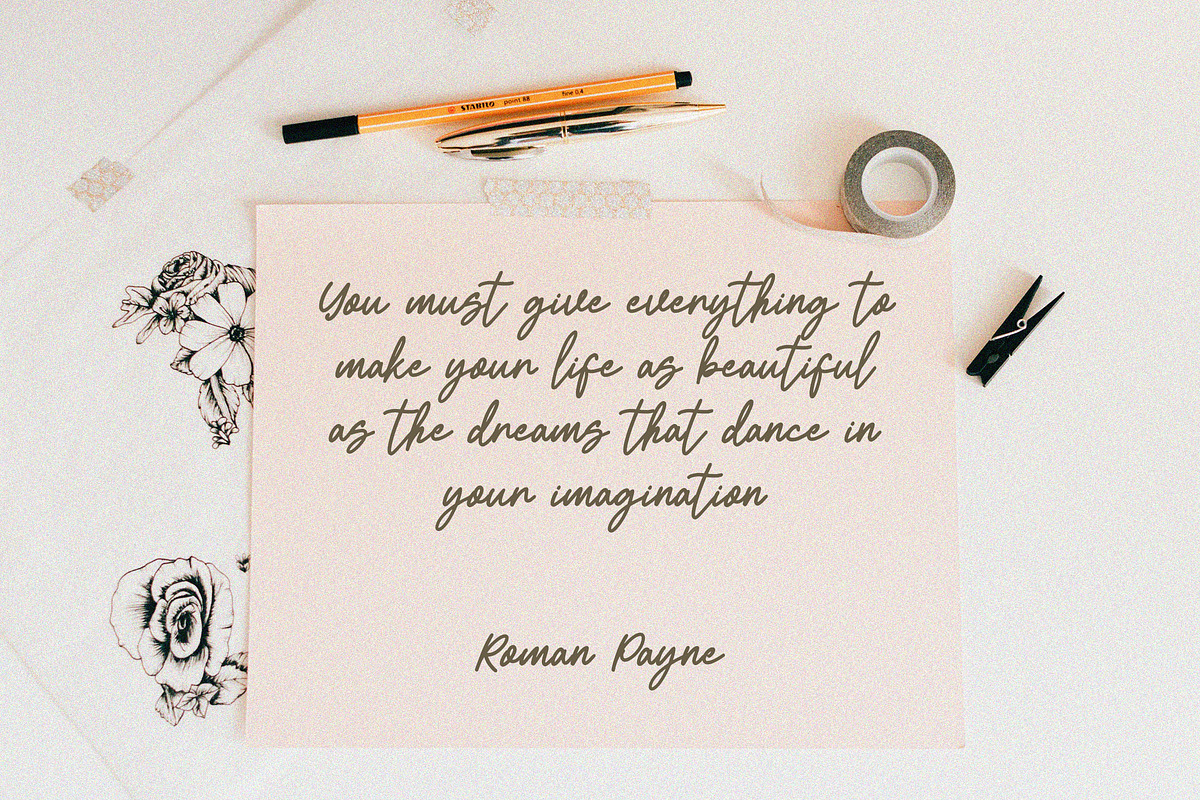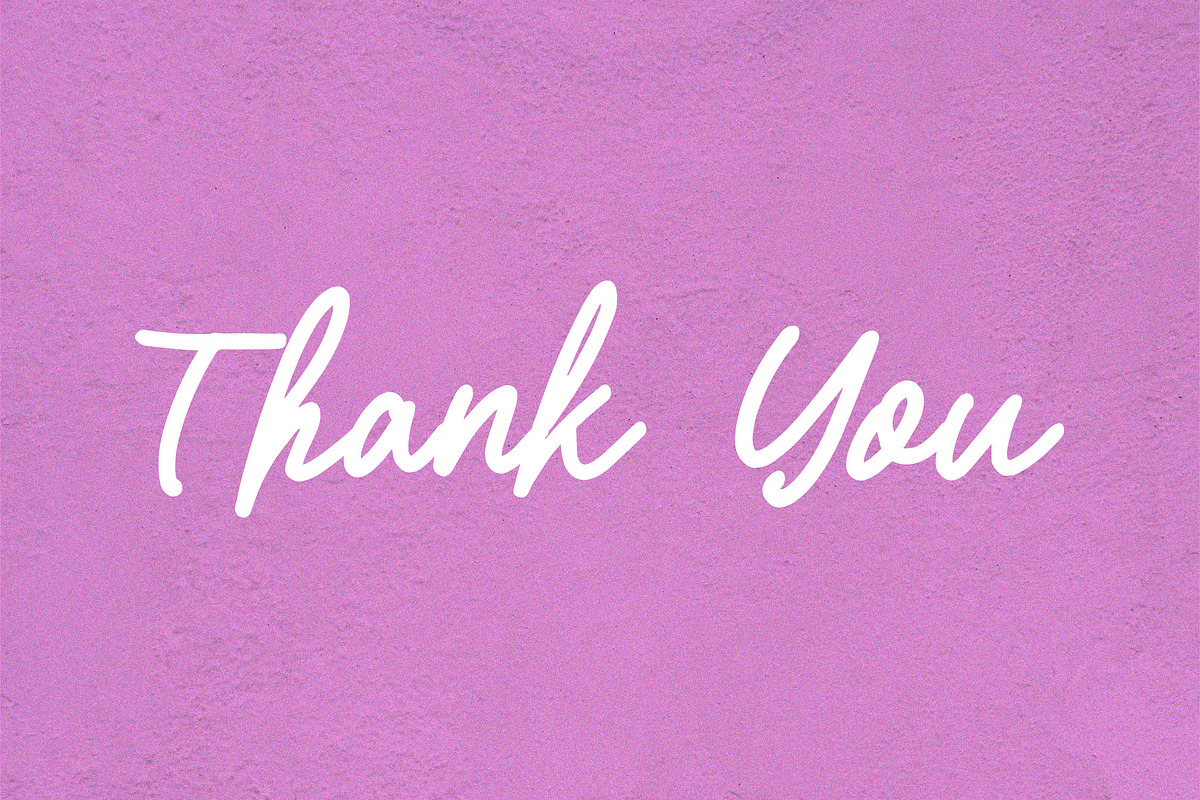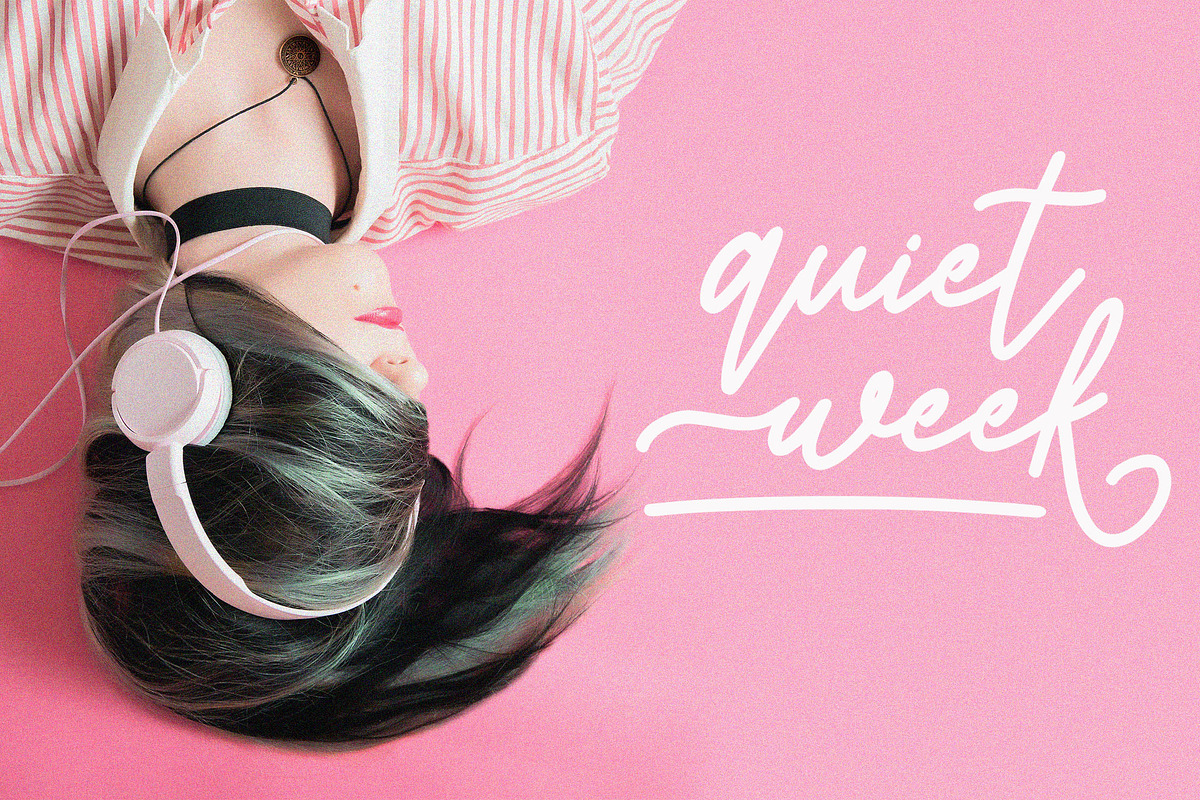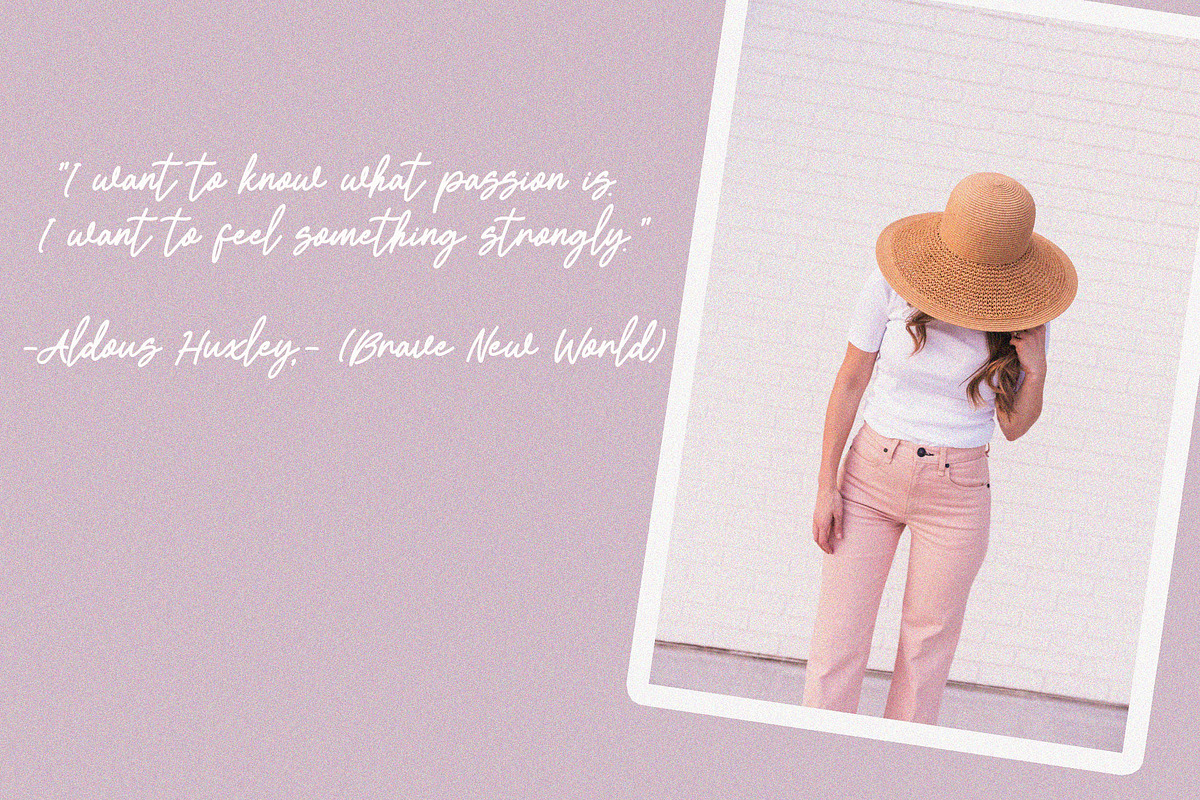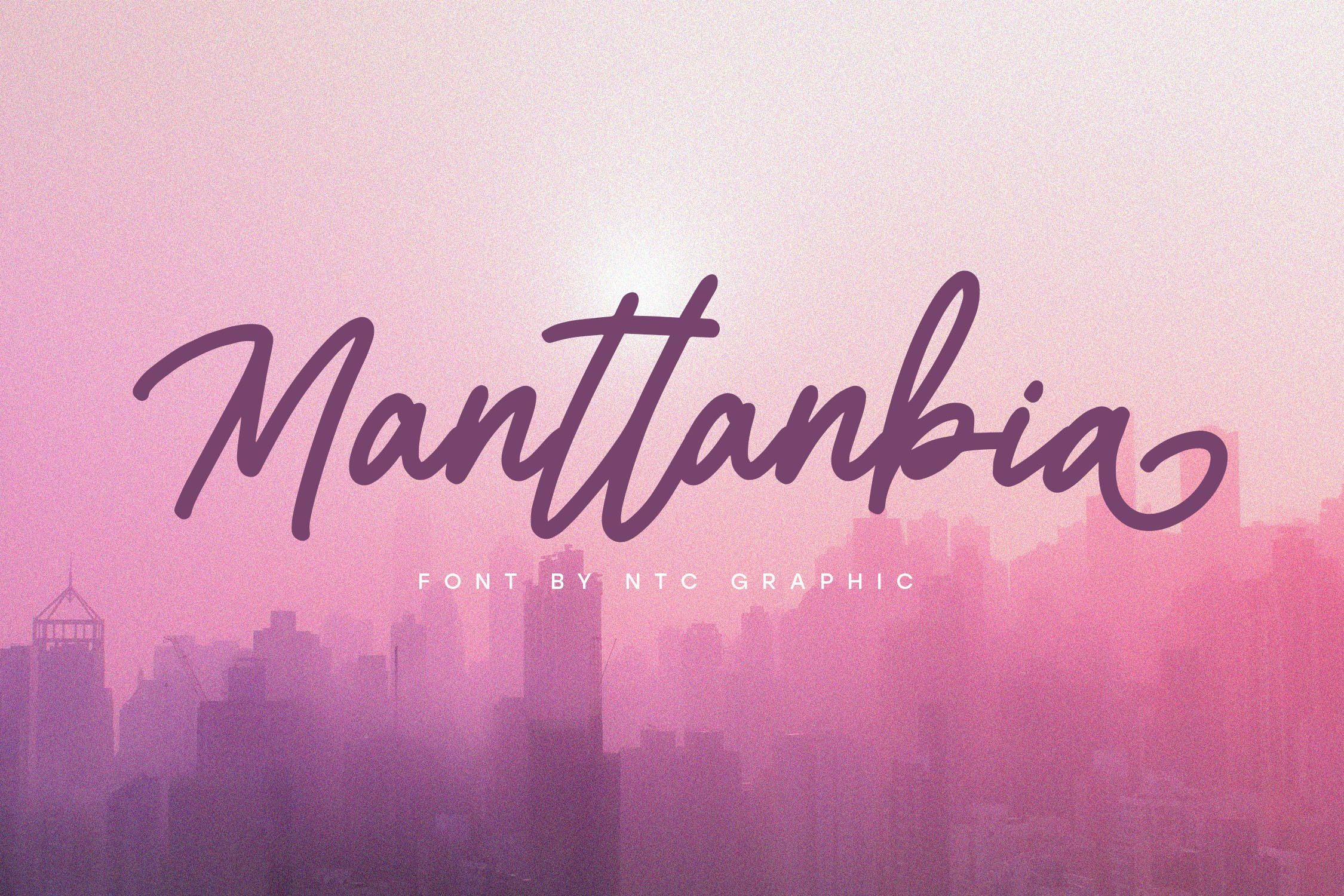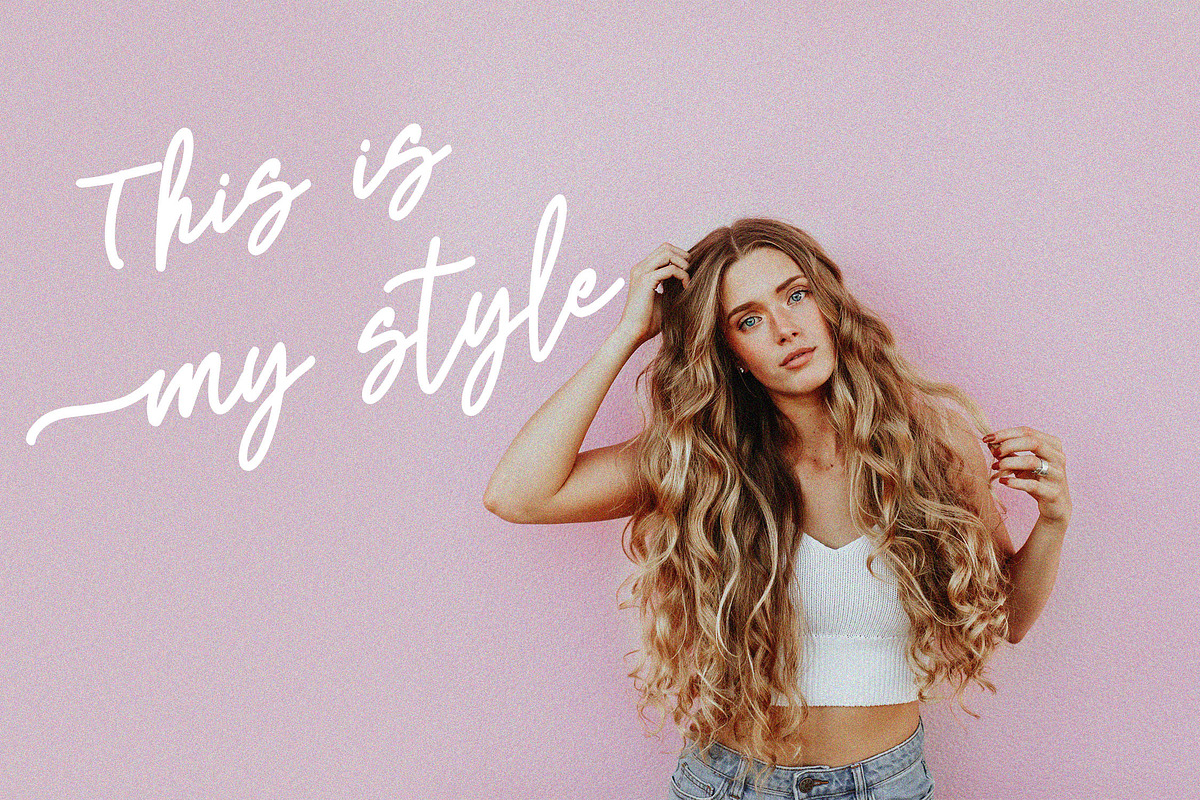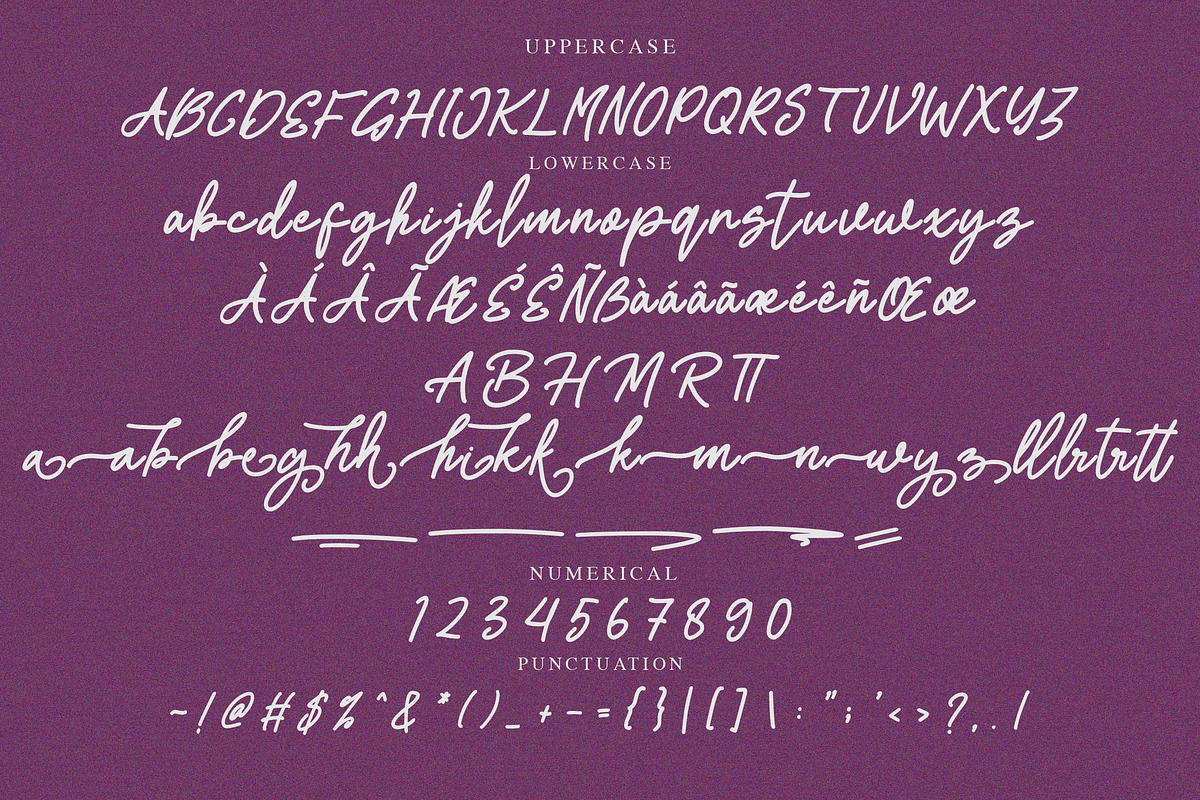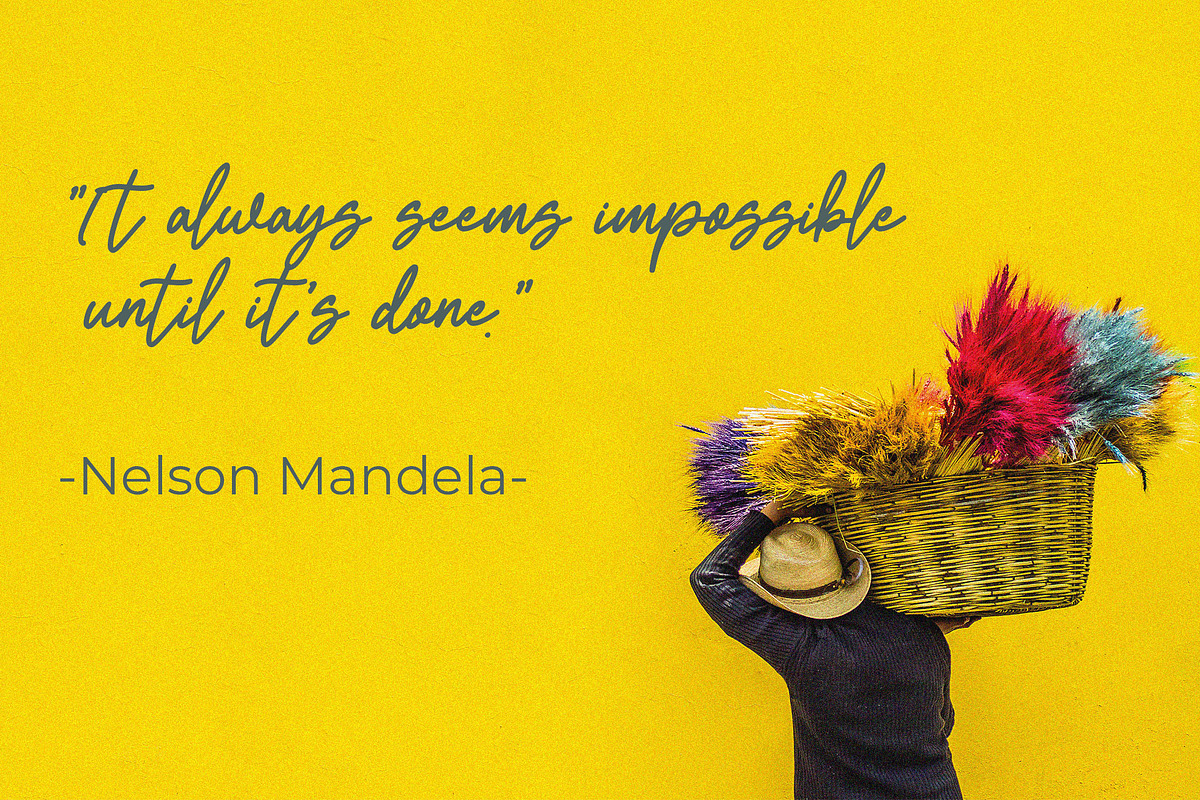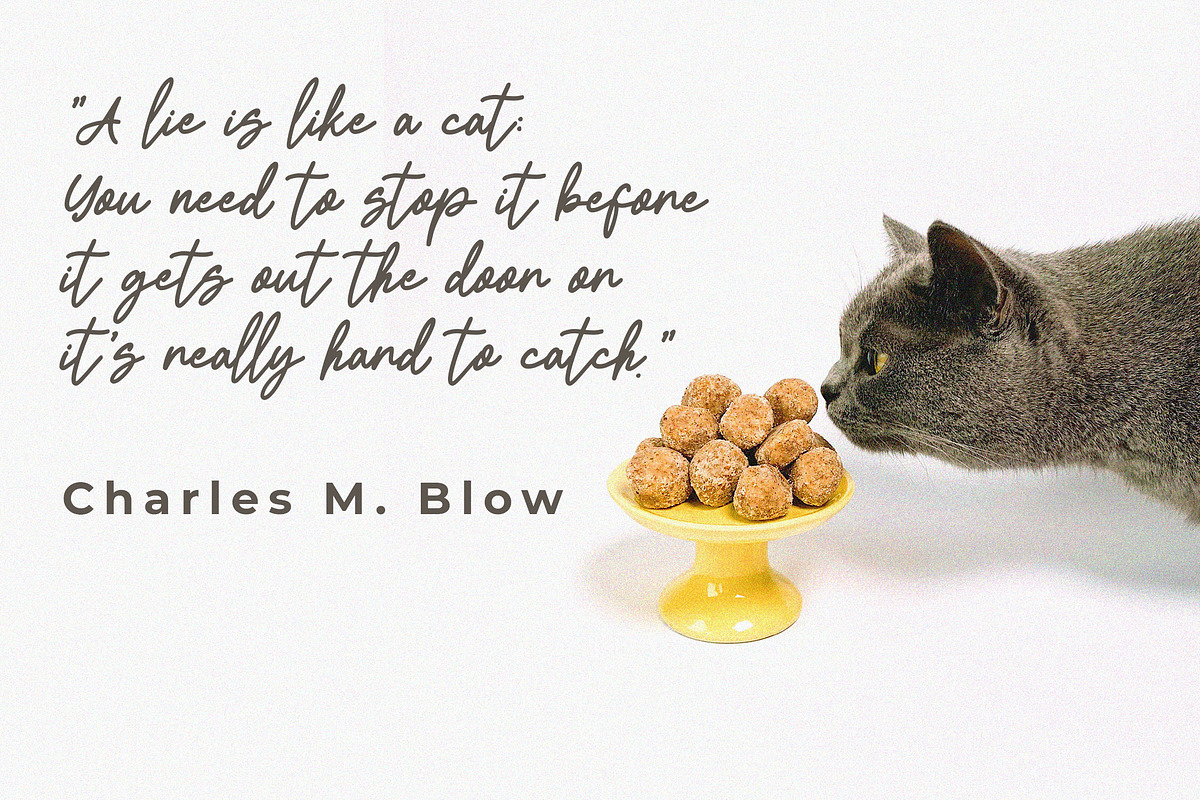
Manttanbia Monoline Script Font
Manttanbia is a monoline script font with minimalist style. Is a font style that is made with scratchy shapes font characters are so beautiful. Can be applied to support the graphic appearance of the product to be more attractive and unique.
- Stylistic Alternate